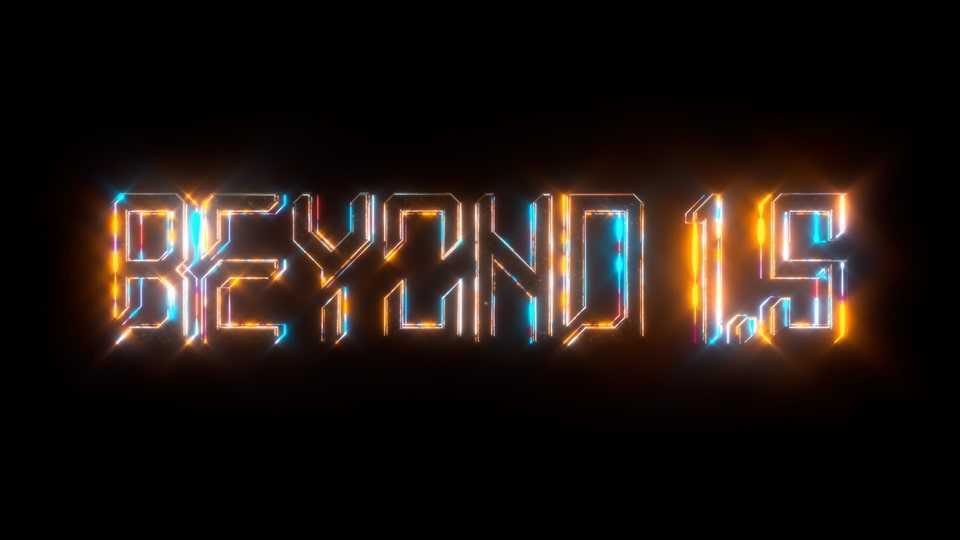
Download Beyond font, a display typeface created to commemorate “Exhibit:Beyond”. With its techno look Beyond font is perfect for posters, headlines, games, logos and typography artworks.
Designer: Dodam Seo